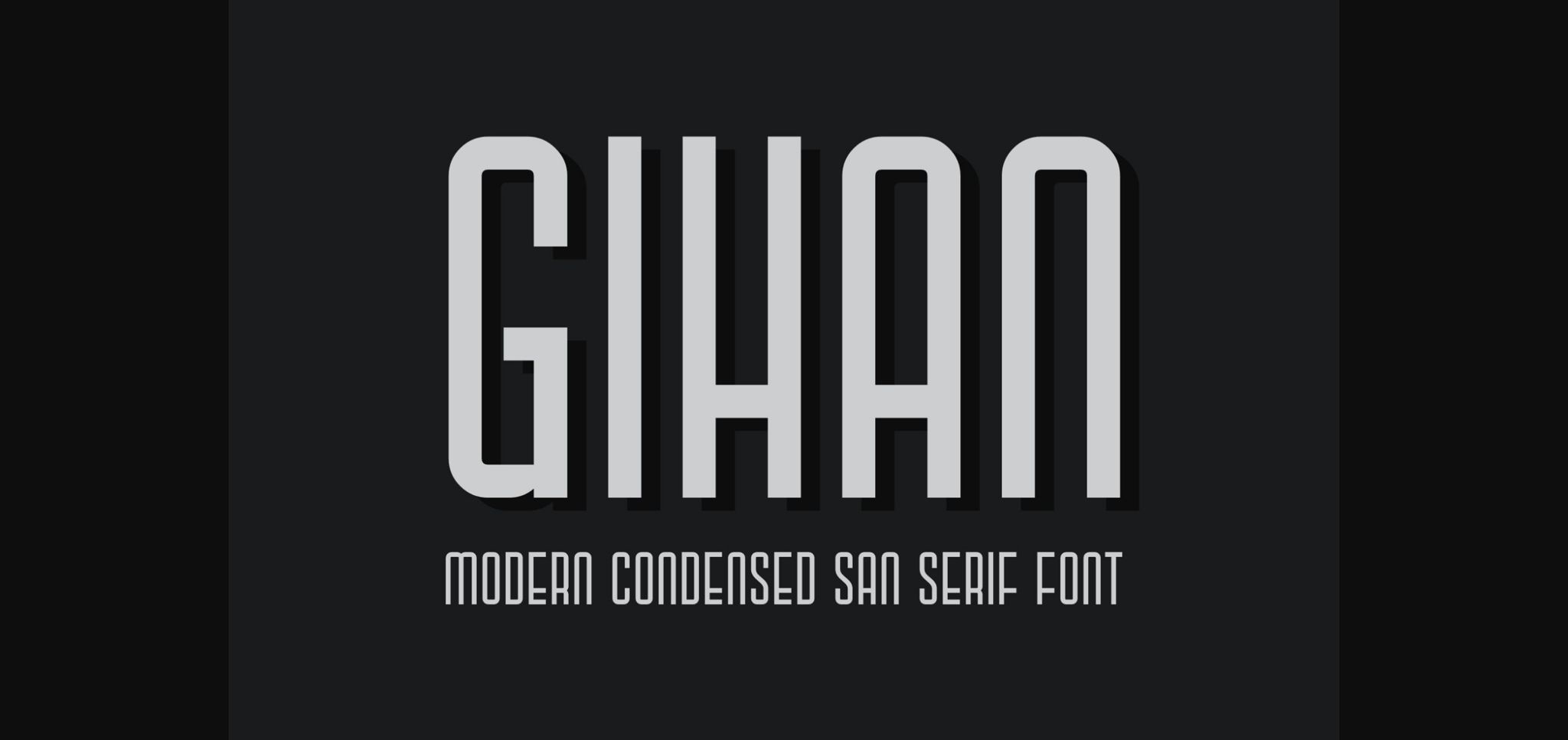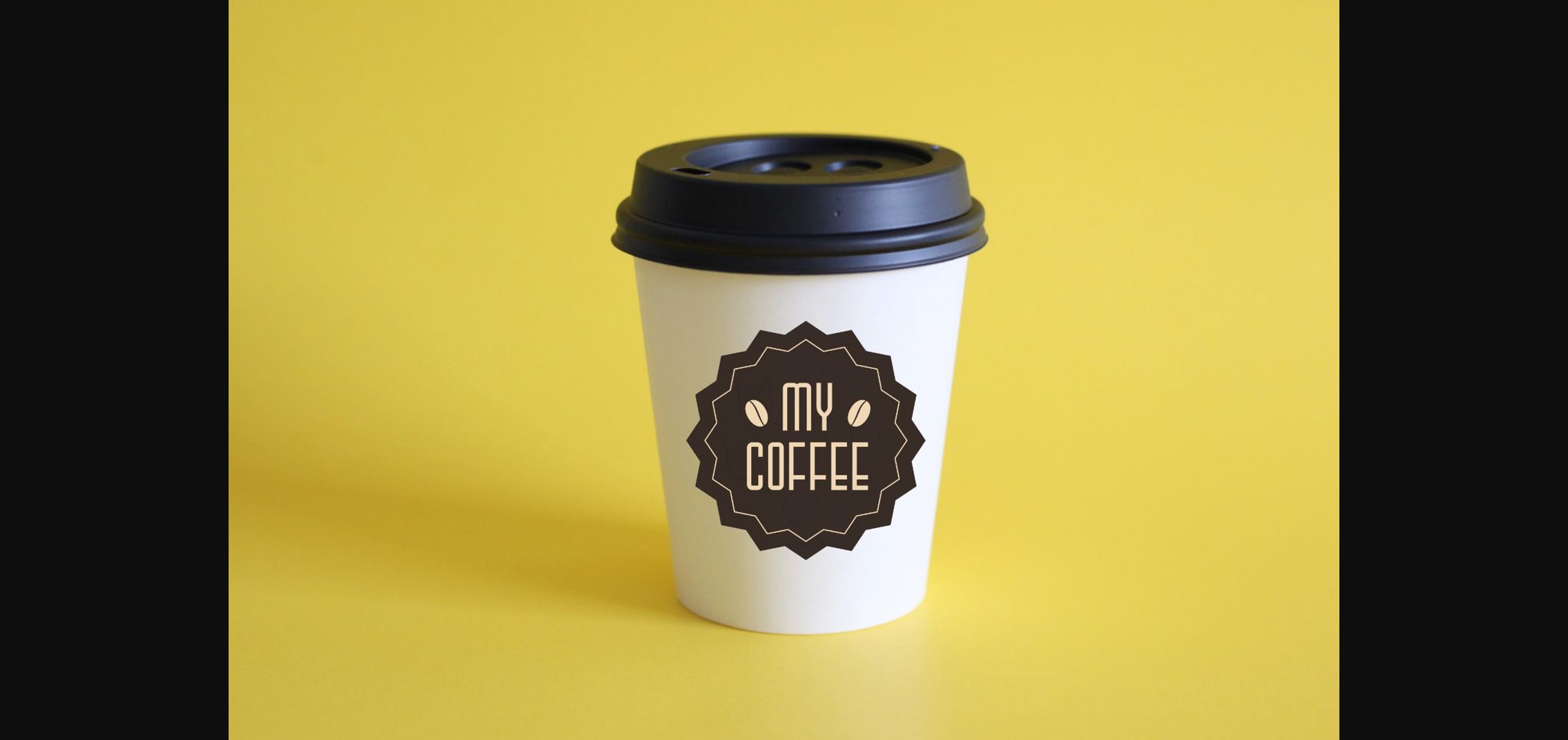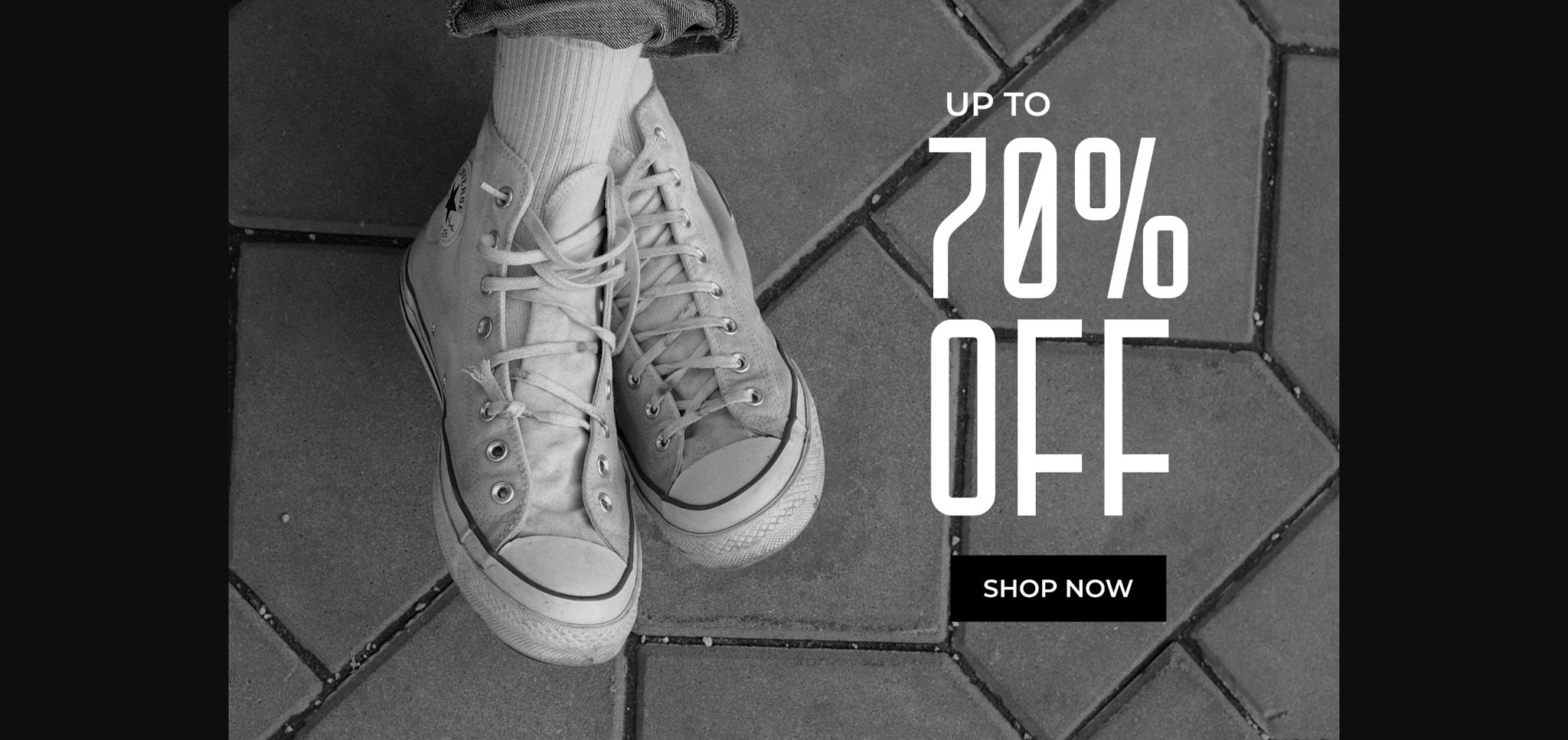
About Gihan Font
Gihan is a modern and unique sans serif font, matching both formal and non-formal designs. It has the potential to become your favorite go-to font, no matter the occasion!